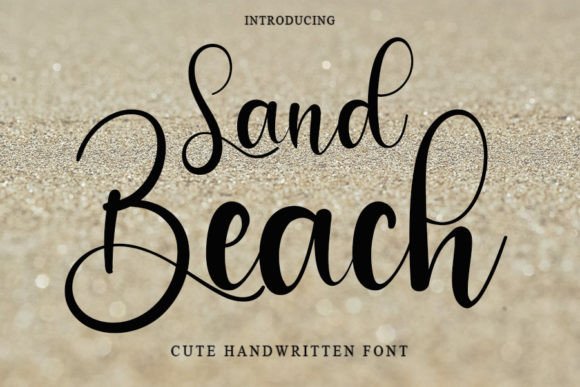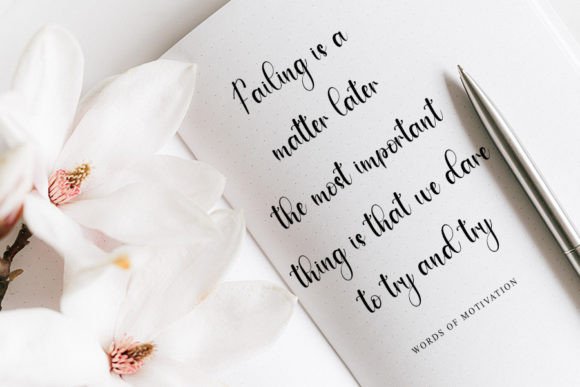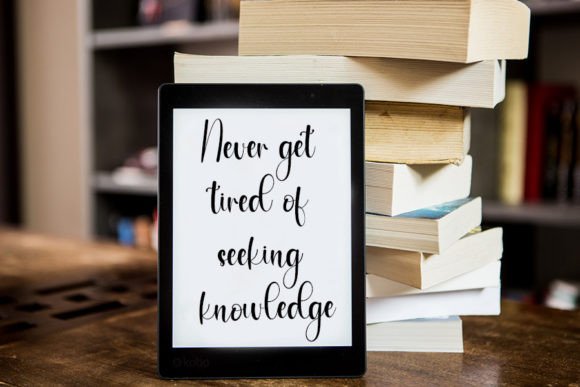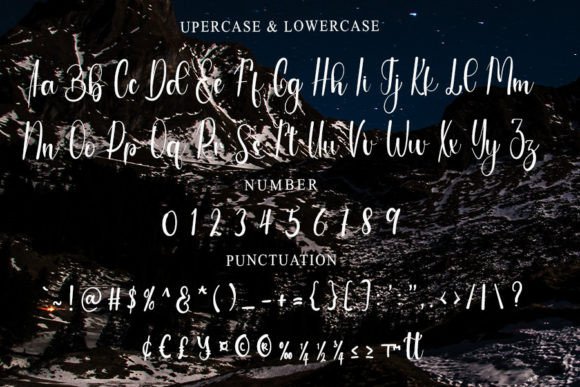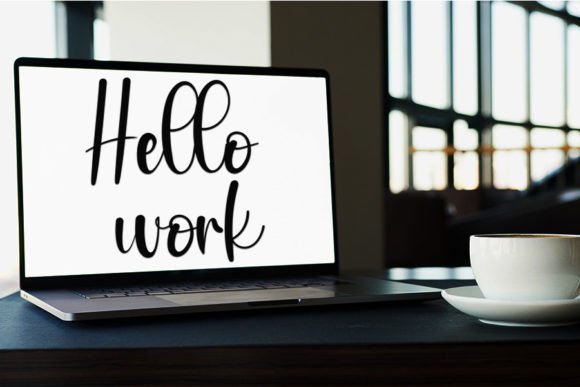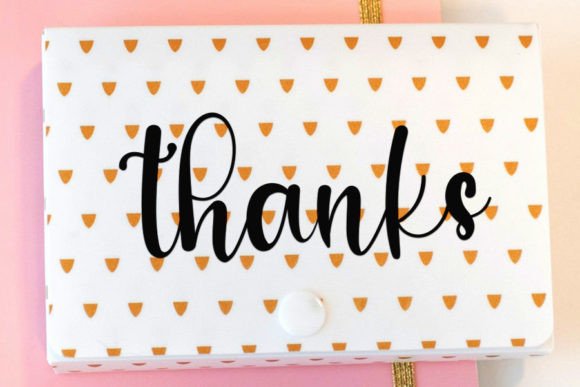
Sand Beach Font
About Sand Beach Font
“Sand Beach” is a meticulously crafted and beautiful handwritten font distinguished by its neat and elegant touch, making it the perfect choice for your favorite projects. Immerse yourself in the allure of its incredibly distinct and timeless style, and let it be the catalyst for creating spectacular designs that captivate and inspire.
The clean lines and graceful strokes of “Sand Beach” bring a sense of order and sophistication to your text, making it versatile for various creative endeavors. Its elegant touch ensures that your projects exude a refined aesthetic, whether you’re working on invitations, branding, or any other design that requires a tasteful and polished appearance.
“Sand Beach” is not just a font; it’s a design asset that evokes a sense of admiration. Its timeless style transcends trends, ensuring that your creations stand the test of time. Fall in love with the font’s charm and let it become a staple in your design toolkit, ready to add a touch of class to any project.
Whether you’re creating beach-themed graphics, vacation-related materials, or any project that demands a laid-back elegance, “Sand Beach” lends a touch of sophistication that elevates your designs. The font’s distinctive style allows it to seamlessly integrate with various themes and purposes, providing a versatile solution for your creative needs.
In summary, “Sand Beach” is a font that marries neatness with beauty, and its handwritten elegance makes it a standout choice for your favorite projects. Let its distinct and timeless style be the driving force behind your design endeavors, ensuring that your creations are not only visually appealing but also possess a refined and enduring quality, reminiscent of the calm and timeless beauty of a sandy beach.